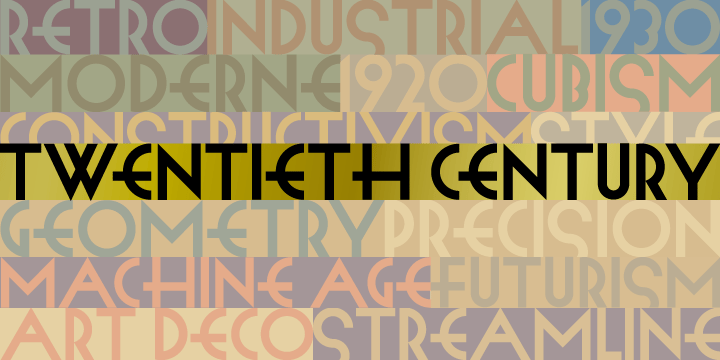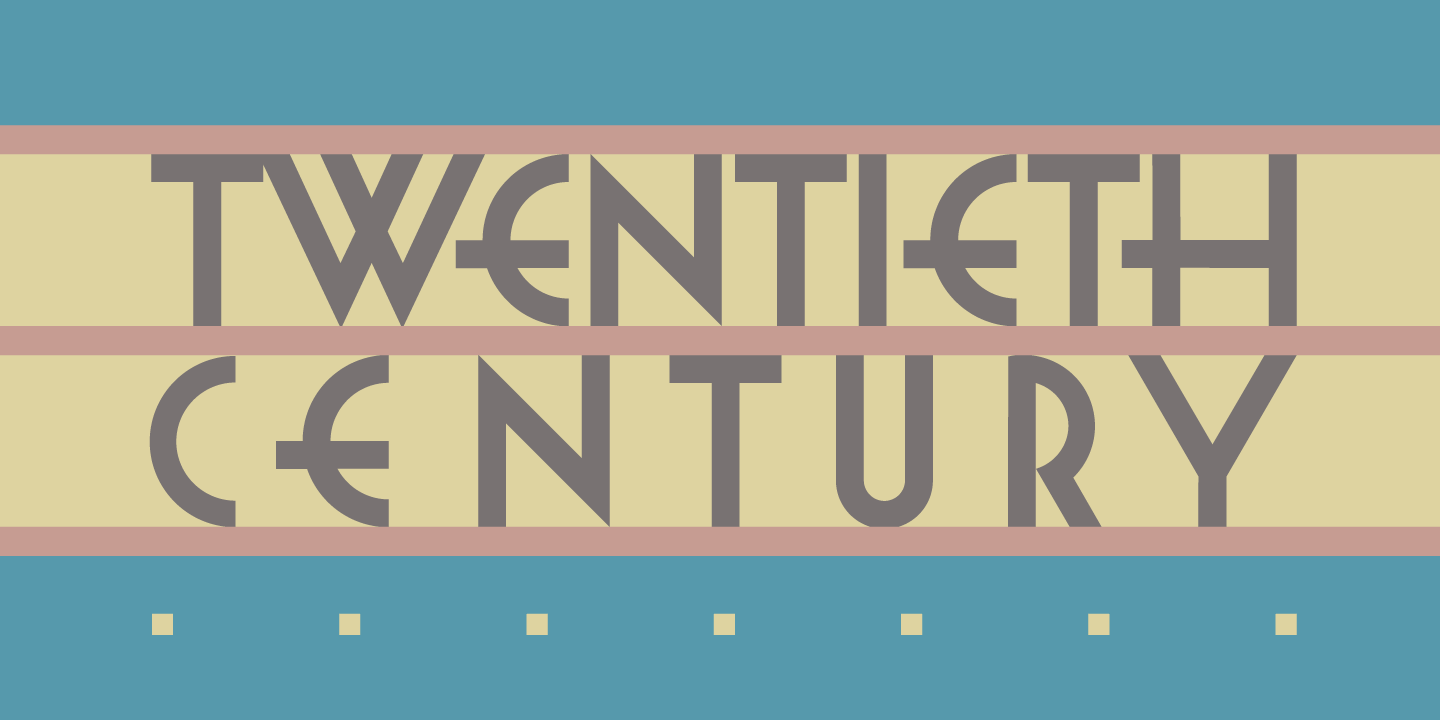
Twentieth Century
About Twentieth Century
Twentieth Century was designed for the cover of a collection of 20th Century French Poetry and was drawn with the intention of using only pure geometric shapes. It is the distillation of a broad variety of styles loosely known as Art Deco but, also categorized…